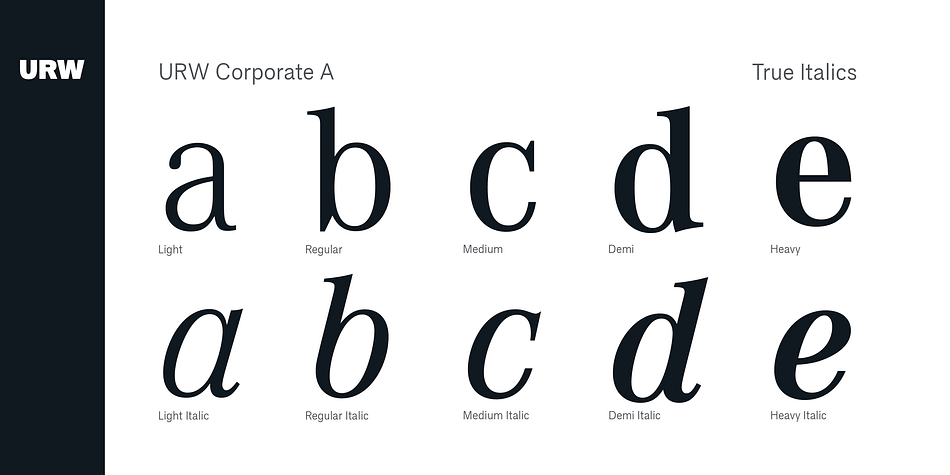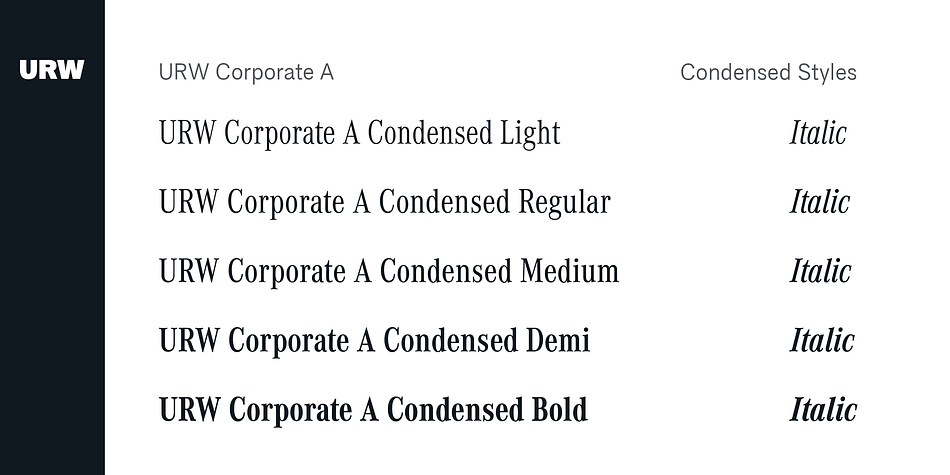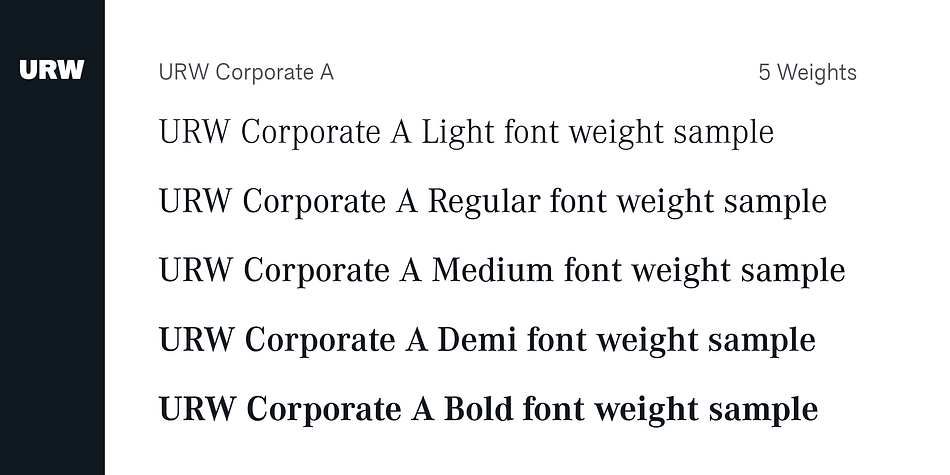
Designed by Kurt Weidemann, URW Corporate A is a serif font family. This typeface has twenty-five styles and was published by URW Type Foundry.
The Corporate ASE typeface trilogy was designed by Prof. Kurt Weidemann, a well-known German designer and typographer, from 1985 until 1990. This superb trilogy consisting of the Corporate Antiqua, Corporate Sans Serif, and Corporate Egyptian is a design program of classical quality, perfectly in tune with each other. Weidemann says: “My ASE trilogy, quite like triplets, is in perfect harmony and covers all needs of modern typography!” Initially exclusively designed for DaimlerChrysler as a corporate font, the ASE trilogy may be now licensed and used without restriction. URW digitized the ASE for DaimlerChrysler and Prof. Weidemann and is the exclusive licencing agent for this outstanding and extremely popular typeface program.